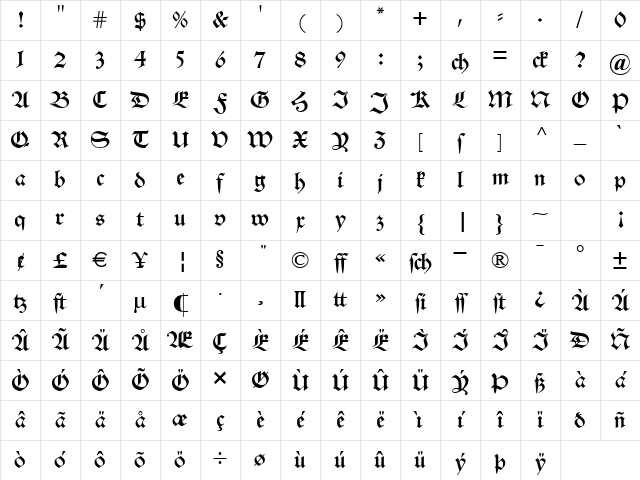
Alte Schwabacher Regular
Alte Schwabacher Family
Complete Alte Schwabacher Regular glyph index. Displaying only characters natively supported by Alte Schwabacher Regular font.
Design Context for Alte Schwabacher
Alte Schwabacher is a composed and adaptable typeface that performs quietly and consistently across a wide range of design contexts.